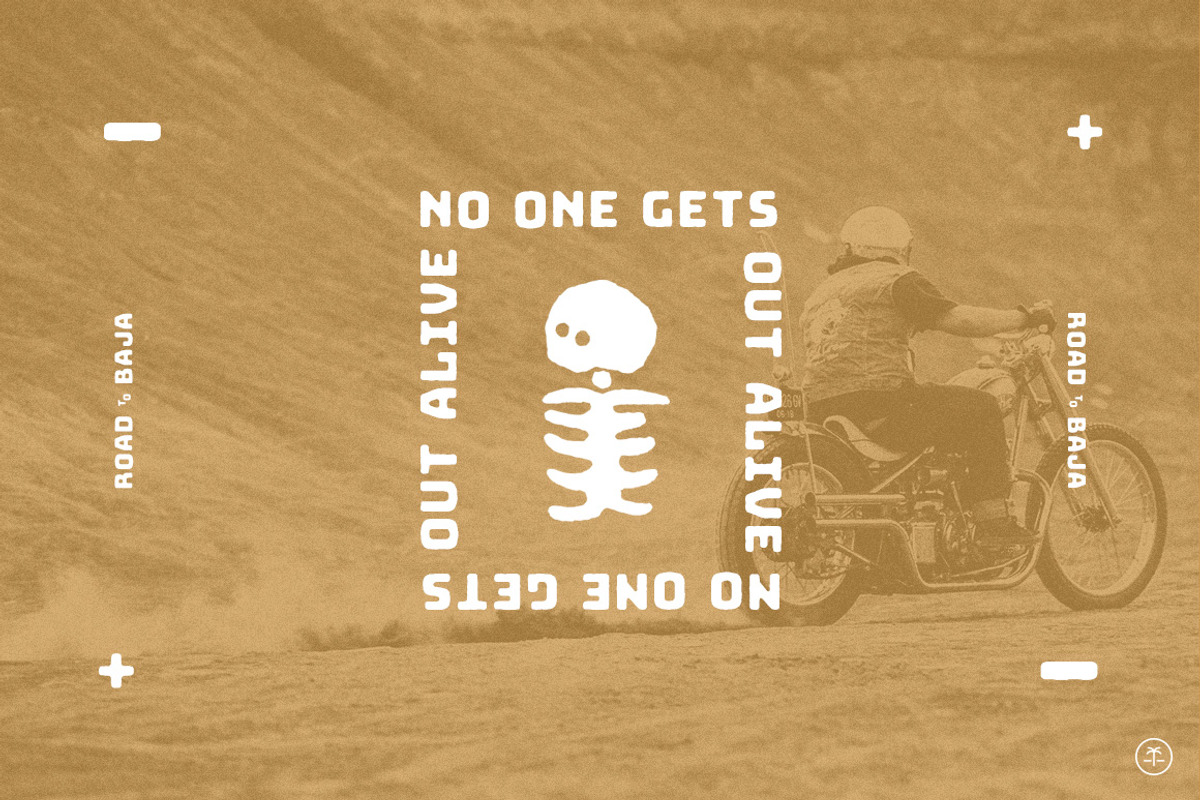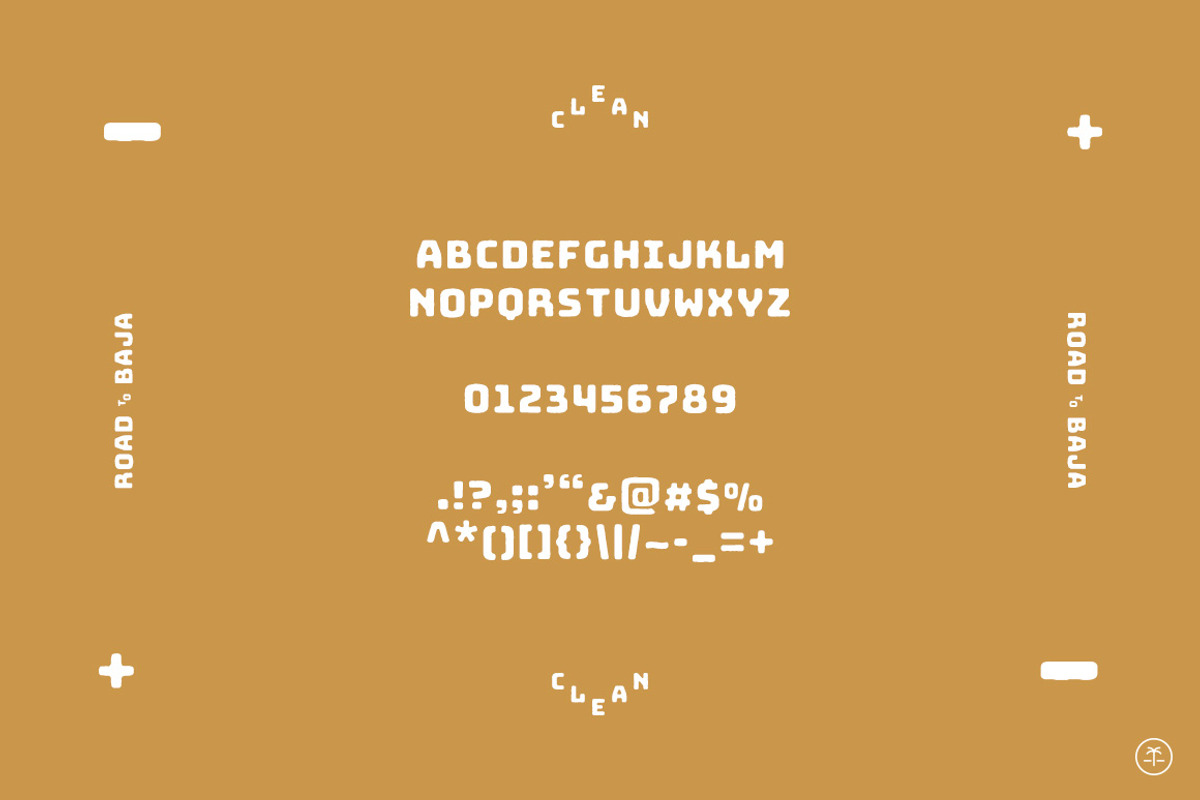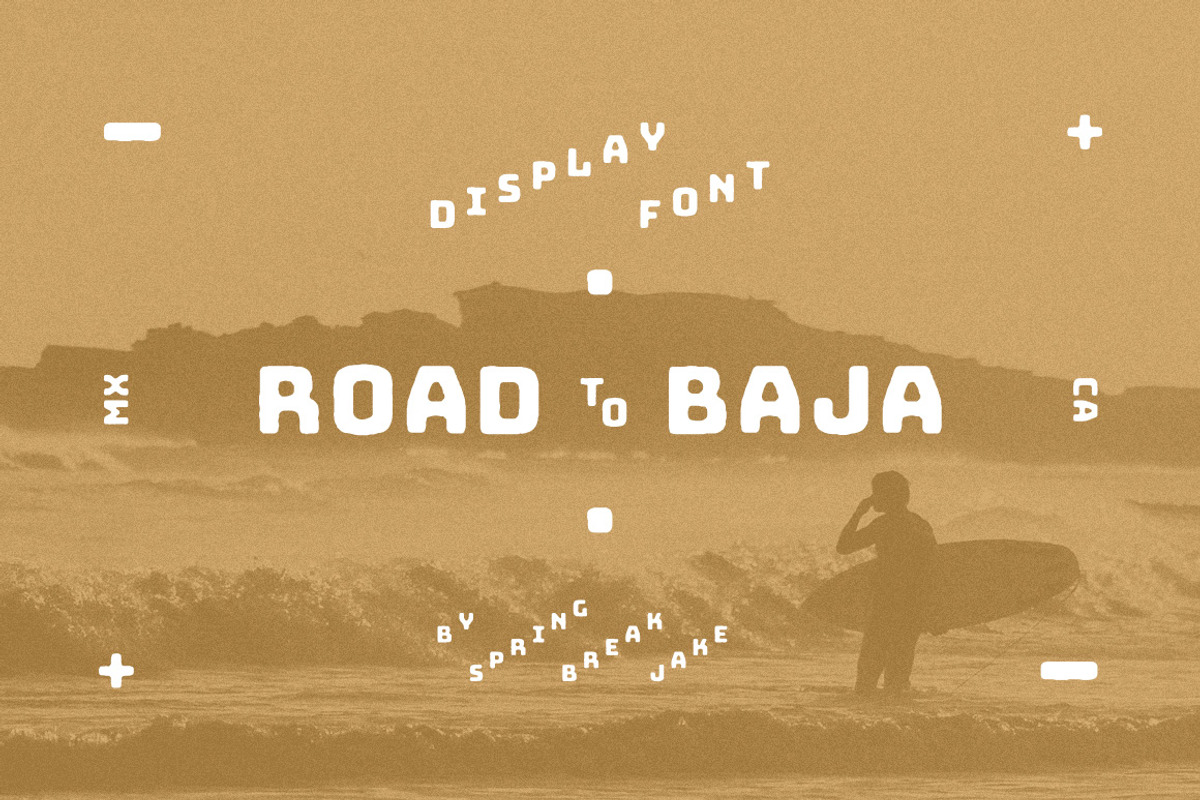
Road to Baja - Simple Display Font
The Road to Baja is paved with biker dreams and surf fever. Make the journey south from California through the dusty landscape with this new travel-inspired font, designed to be an all-purpose vehicle, from main logos & wordmarks to detail text with sun-baked flare.
Road to Baja comes complete with a full set of uppers whether you have caps lock on or not as well as numbers and basic punctuation.